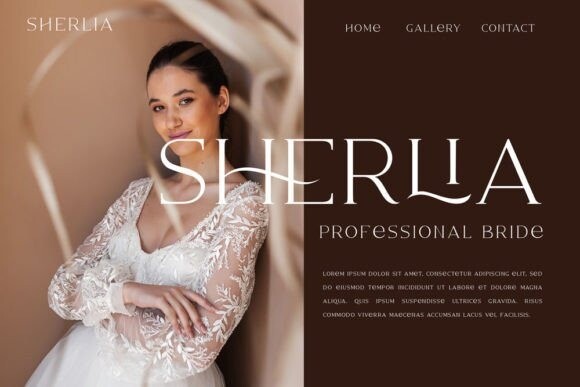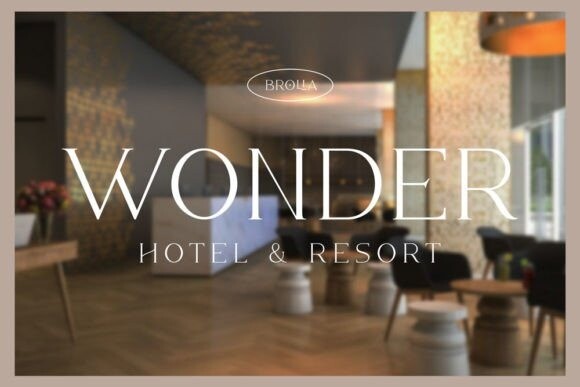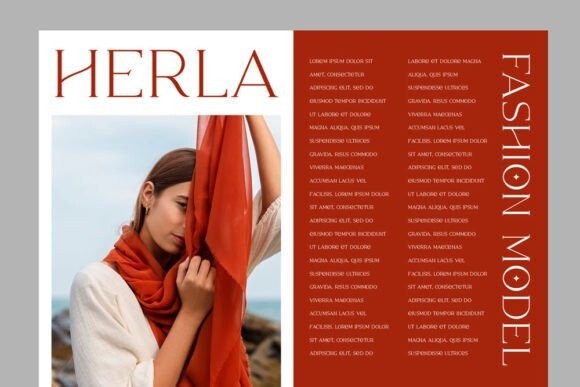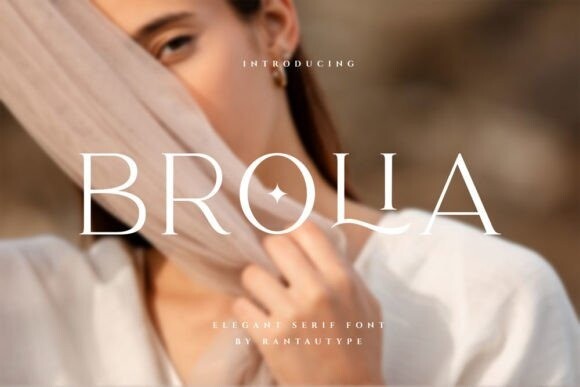
Brolia Font
Brolia Font is an elegant & modern serif font designed by RantauType with special alternative letters and with multilingual support. Contemporary and fresh, it is perfect for any design you wish to create. Add it to your creative projects and make them outstanding!